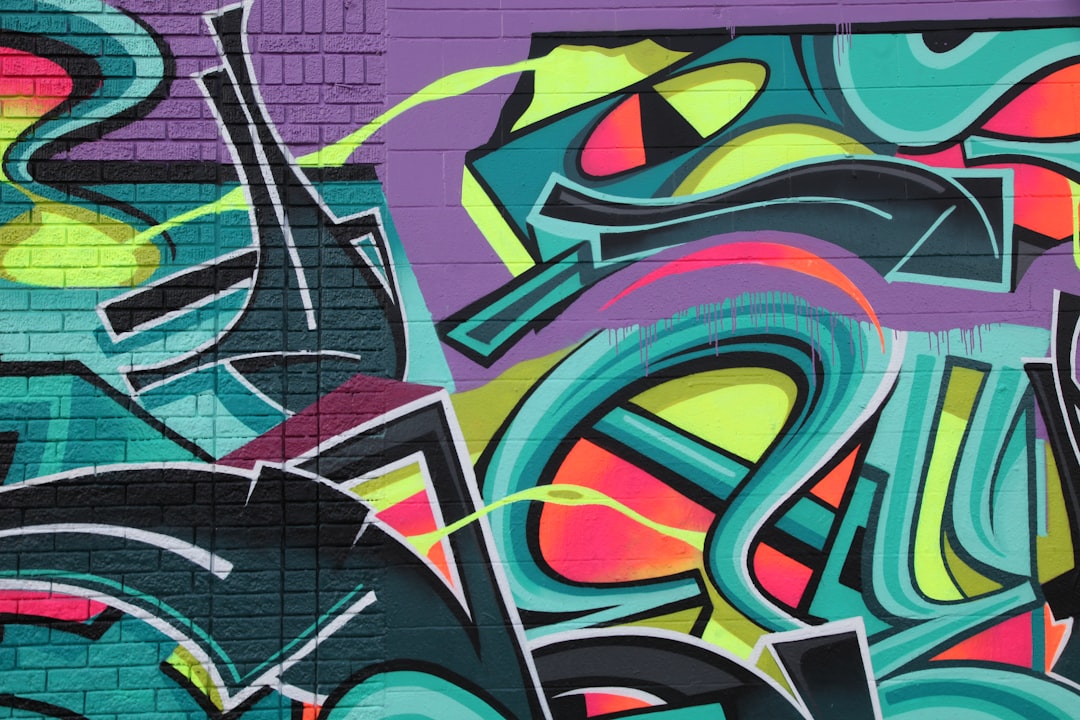
Quick answerFor an authentic spray-can tag, Throw My Hands Up In Da Air and Writers capture the marker style, while Graffiti Treat and Degrassi nail the bubble look. Almost all graffiti fonts come from DaFont and are free for personal use only, so commercial projects need to confirm a license. Use these for headlines, never body text.
Graffiti fonts translate the energy of street art into digital type, capturing tags, throw-ups, bubble letters and dense wildstyle lettering. The best graffiti fonts are display faces built for impact: posters, album covers, streetwear graphics, gaming and urban branding. None are meant for paragraphs, and most are highly stylized, so legibility drops fast as you cram more words in. Treat them as a visual statement, not a workhorse.
What makes a good graffiti font?
A convincing graffiti font reproduces the texture of its tool, whether that is a dripping spray can, a fat marker or a paint roller. Look for confident weight, attitude in the letterforms, and stylistic consistency across the alphabet. Bubble styles need rounded volume and outlines; tag styles need fast, slanted marker strokes; wildstyle needs interlocking, arrow-laden complexity. The trade-off is always legibility, so the best ones keep enough letter structure that a viewer can still read the word.
Best graffiti fonts
These ten cover tag, bubble and wildstyle looks. Most are sourced from DaFont and are free for personal use only; verify licensing before any paid project.
Throw My Hands Up In Da Air Marker-style tags Free for personal use
Writers Authentic handstyle tags Free for personal use
Graffiti Treat Bubble letters Free for personal use
Degrassi Rounded bubble style Free for personal use
Sprite Graffiti Clean spray-paint look Free for personal use
Urban Jungle Wildstyle complexity Free for personal use
A Dripping Marker Drip-effect headlines Free for personal use
Street Soul Smooth marker script Free for personal use
Sicko Aggressive tag style Free for personal use
2Toon2 Cartoon outline letters Free for personal use
1. Throw My Hands Up In Da Air
This DaFont favorite mimics a fat marker tag with energetic, slanted strokes and just enough roughness to feel hand-drawn. It is excellent for short, punchy headlines on streetwear and posters. Free for personal use; commercial projects require a license from the designer.
2. Writers
Writers reproduces an authentic handstyle, the quick signature tag writers use on walls. Its varied stroke pressure and connected flow look genuinely sprayed rather than typed. A great pick for urban branding, though, as with most graffiti fonts, it is free for personal use only.
3. Graffiti Treat
Graffiti Treat delivers classic rounded bubble letters with clean outlines, ready for you to fill with color and shadow. It is one of the more legible graffiti fonts, making it suitable for event flyers and youth-focused designs. Free for personal use via DaFont.
4. Degrassi
Degrassi is a soft, rounded bubble face with a playful, inflated feel. It works well for comic-style graphics, gaming overlays and party invitations that want a street twist. Free for personal use; confirm licensing for commercial work.
5. Sprite Graffiti
Sprite Graffiti offers a clean, even spray-paint aesthetic with consistent letterforms that stay readable. It is a versatile choice when you want the urban vibe without heavy distortion. Available free for personal use.
6. Urban Jungle
For true wildstyle complexity, Urban Jungle features interlocking letters, arrows and sharp angles that echo advanced graffiti pieces. It looks spectacular as a single word but becomes unreadable in long strings, so use it sparingly. Free for personal use.
7. A Dripping Marker
A Dripping Marker adds the signature paint-drip effect beneath each letter, instantly signaling spray-can art. It suits horror, music and edgy brand graphics. Free for personal use; license required for commercial output.
8. Street Soul
Street Soul is a smooth marker script with a flowing, confident hand. It bridges graffiti and handwriting, making it a good option when you want street character with stronger readability. Free for personal use via DaFont.
9. Sicko
Sicko is an aggressive, jagged tag style with sharp terminals and high energy. It is ideal for hip-hop covers, gaming clans and bold apparel. As with the others, it is free for personal use only, so check before commercial use.
10. 2Toon2
2Toon2 is a cartoon-influenced outline font with bold, playful letters perfect for stickers and comic-style street graphics. Its clear shapes make it one of the more versatile choices in this list. Free for personal use.
Many sites offer online graffiti text generators that apply these fonts to your words for preview. They are handy for mockups, but you still need the correct license to publish or sell the result. For real control, download the font and use it in a design tool.
Are graffiti fonts legible for body text?
No. Graffiti fonts are highly stylized display faces meant for short headlines and logos. In paragraphs they quickly become unreadable, especially wildstyle designs. Always pair them with a neutral, legible body font and reserve the graffiti style for impact lines.